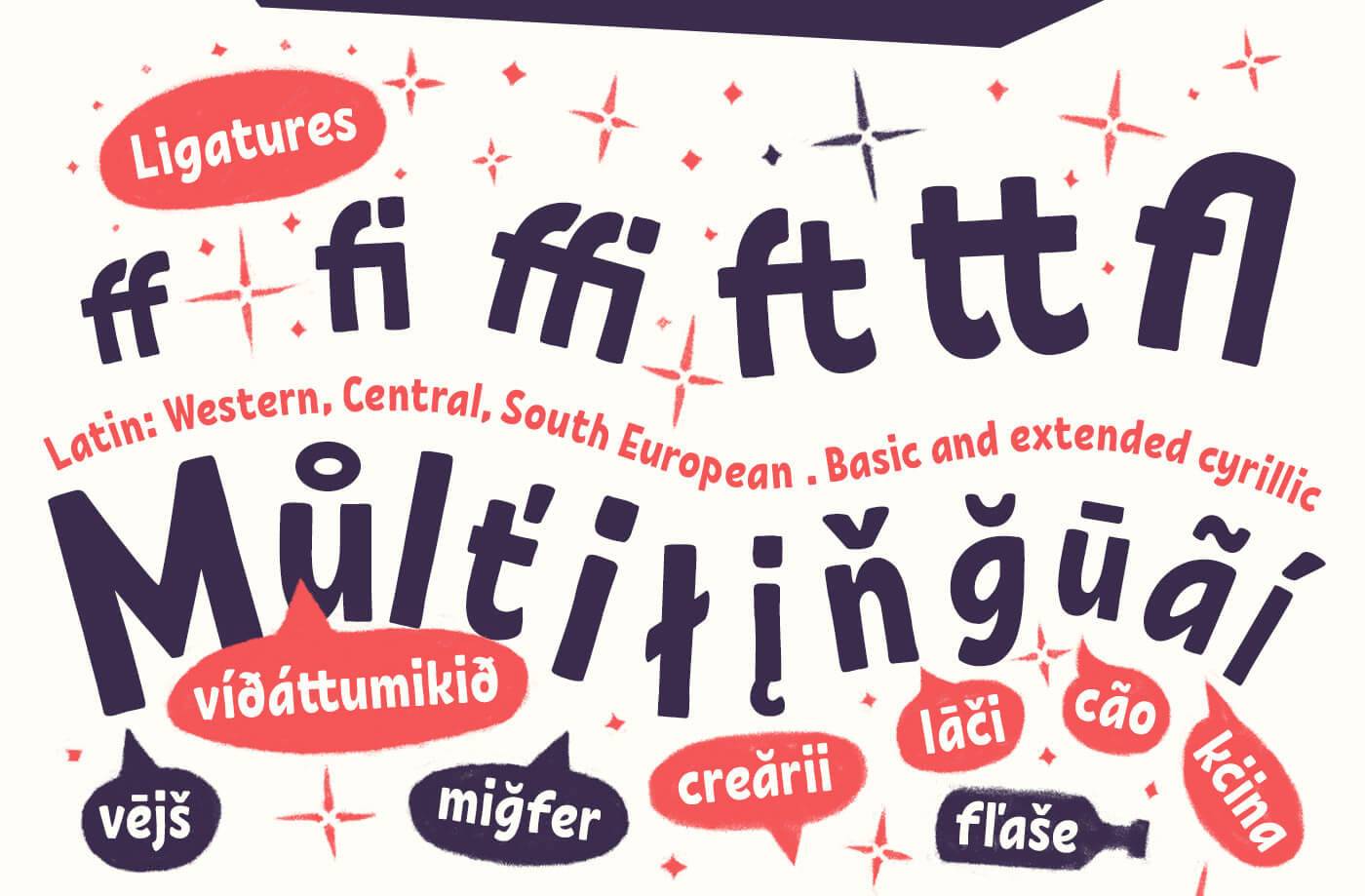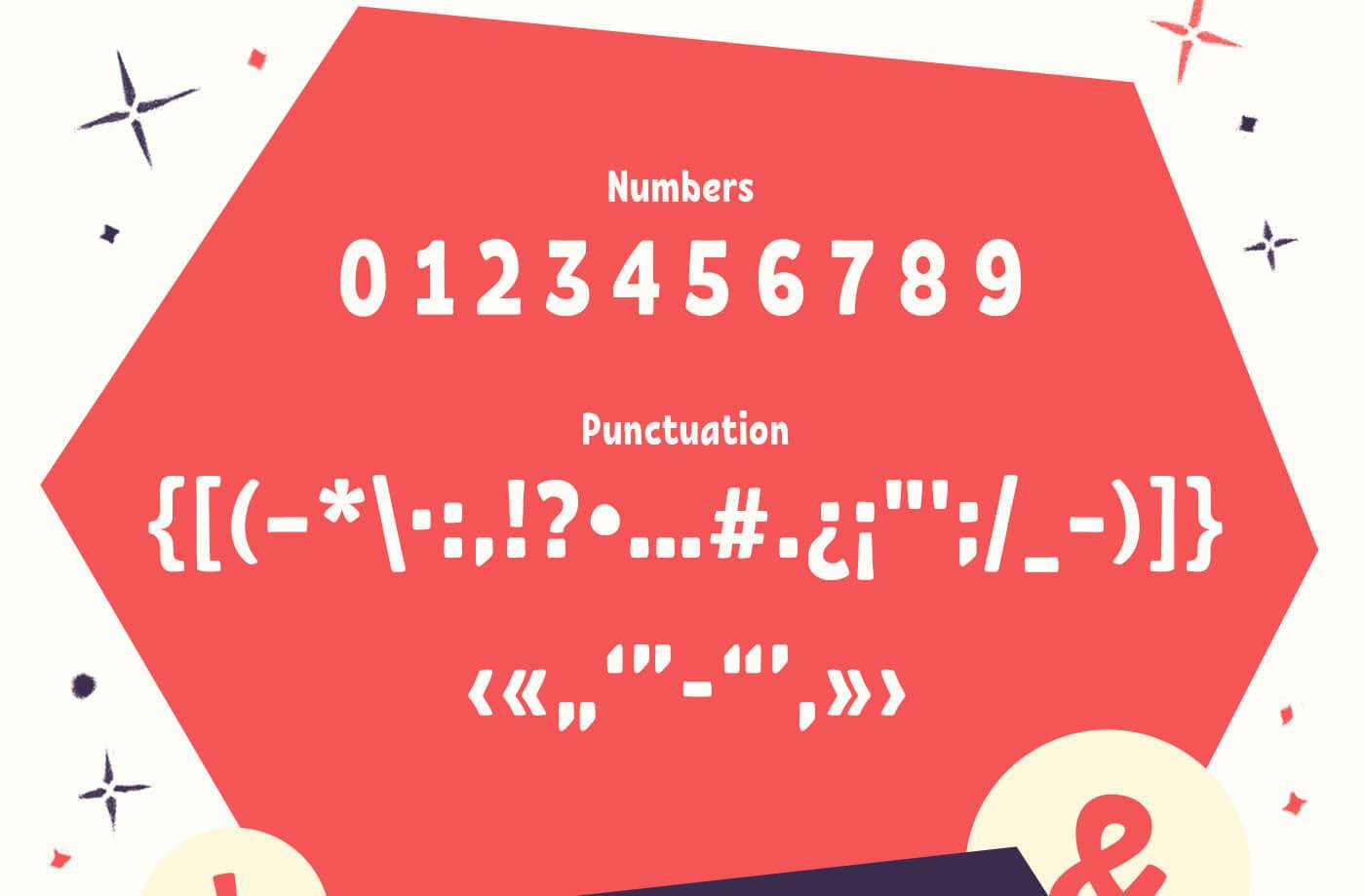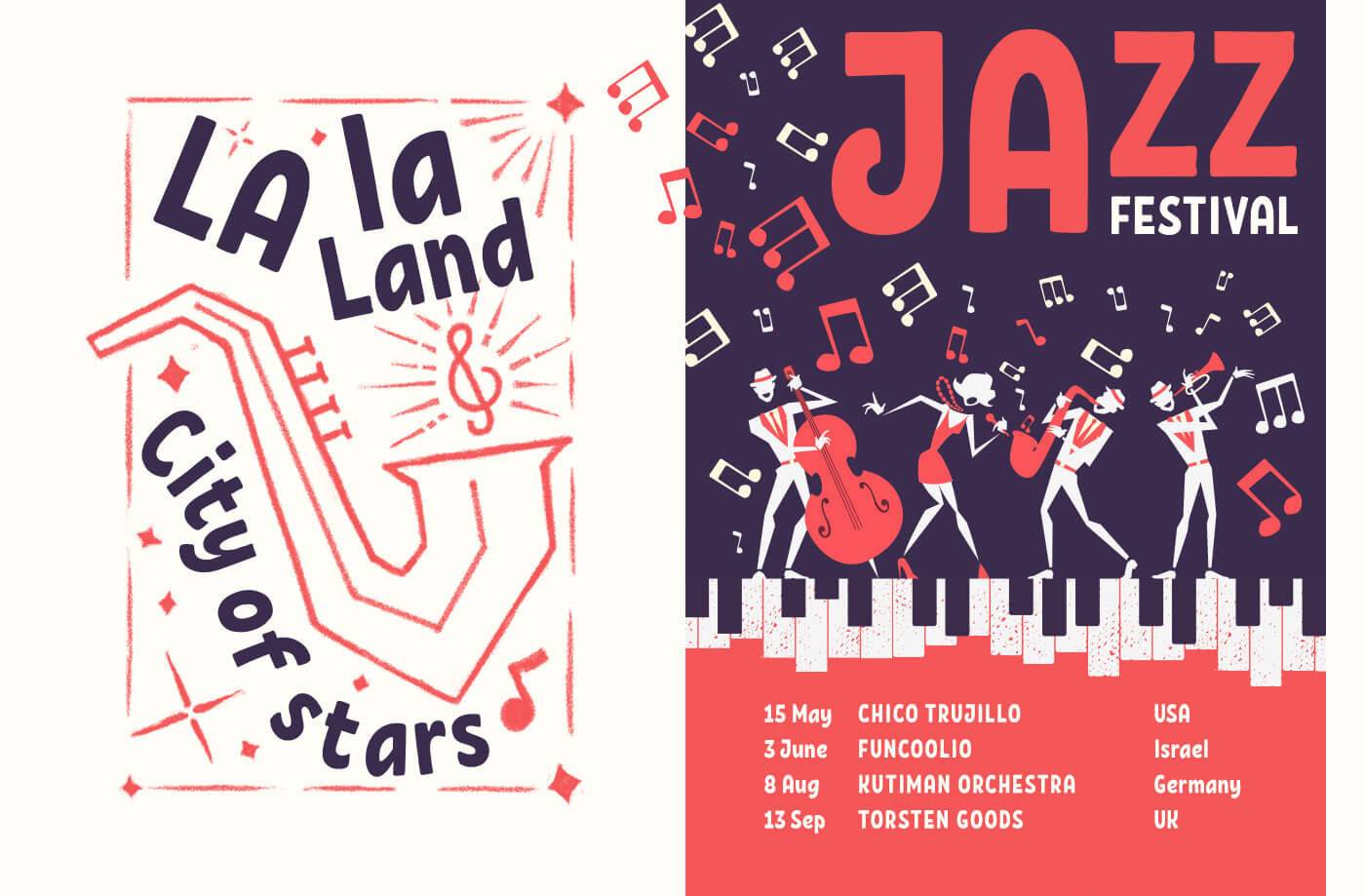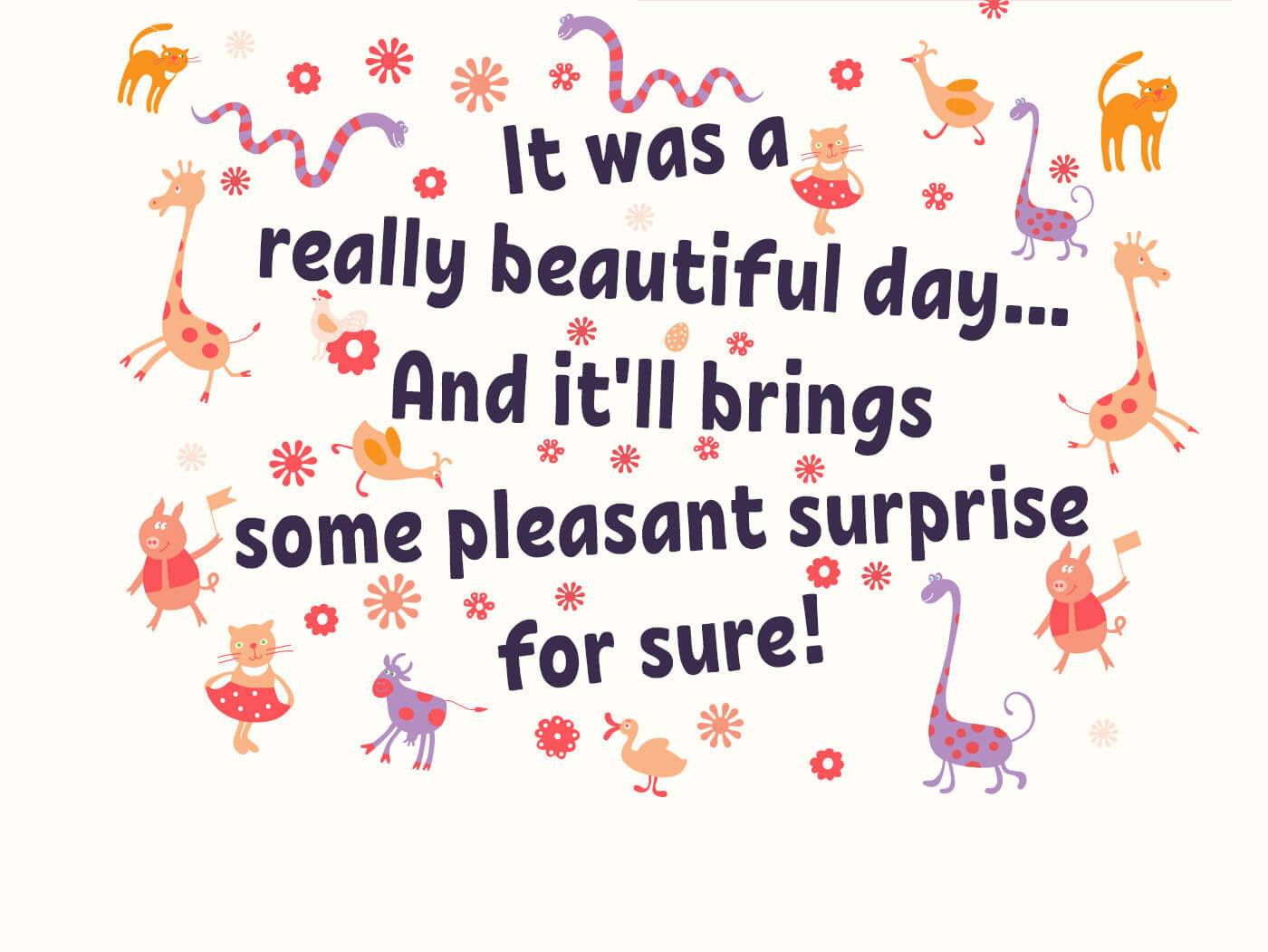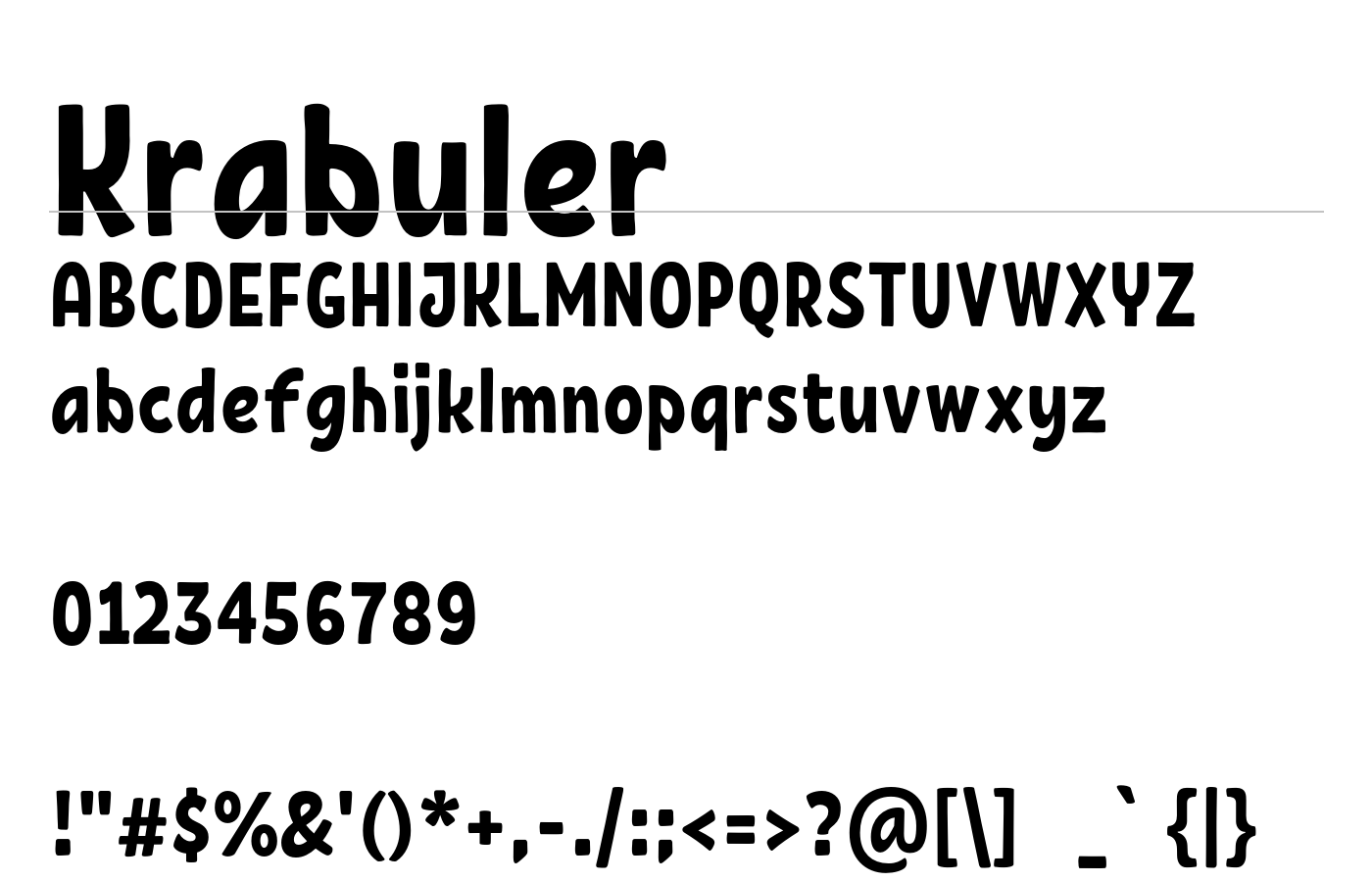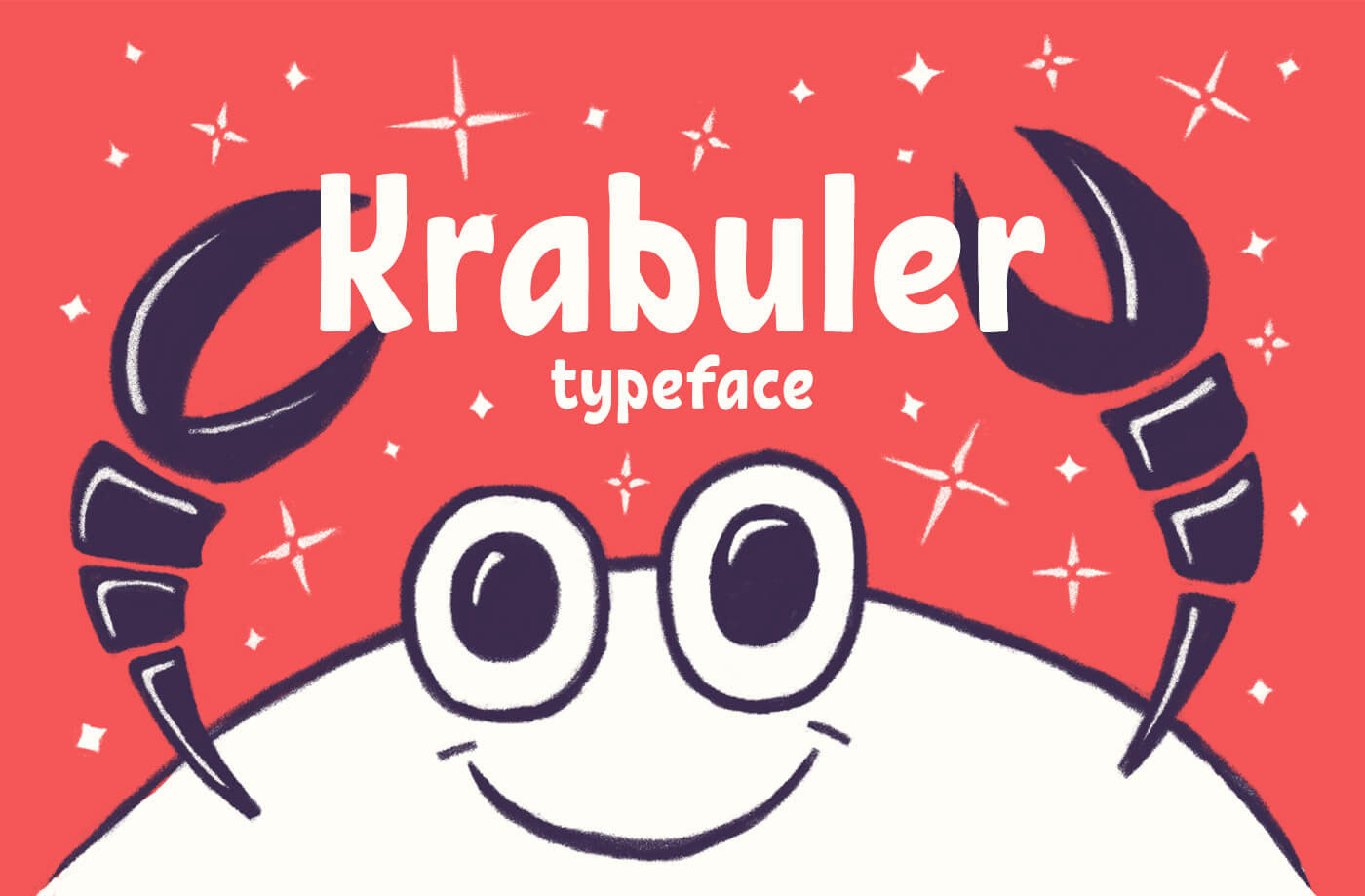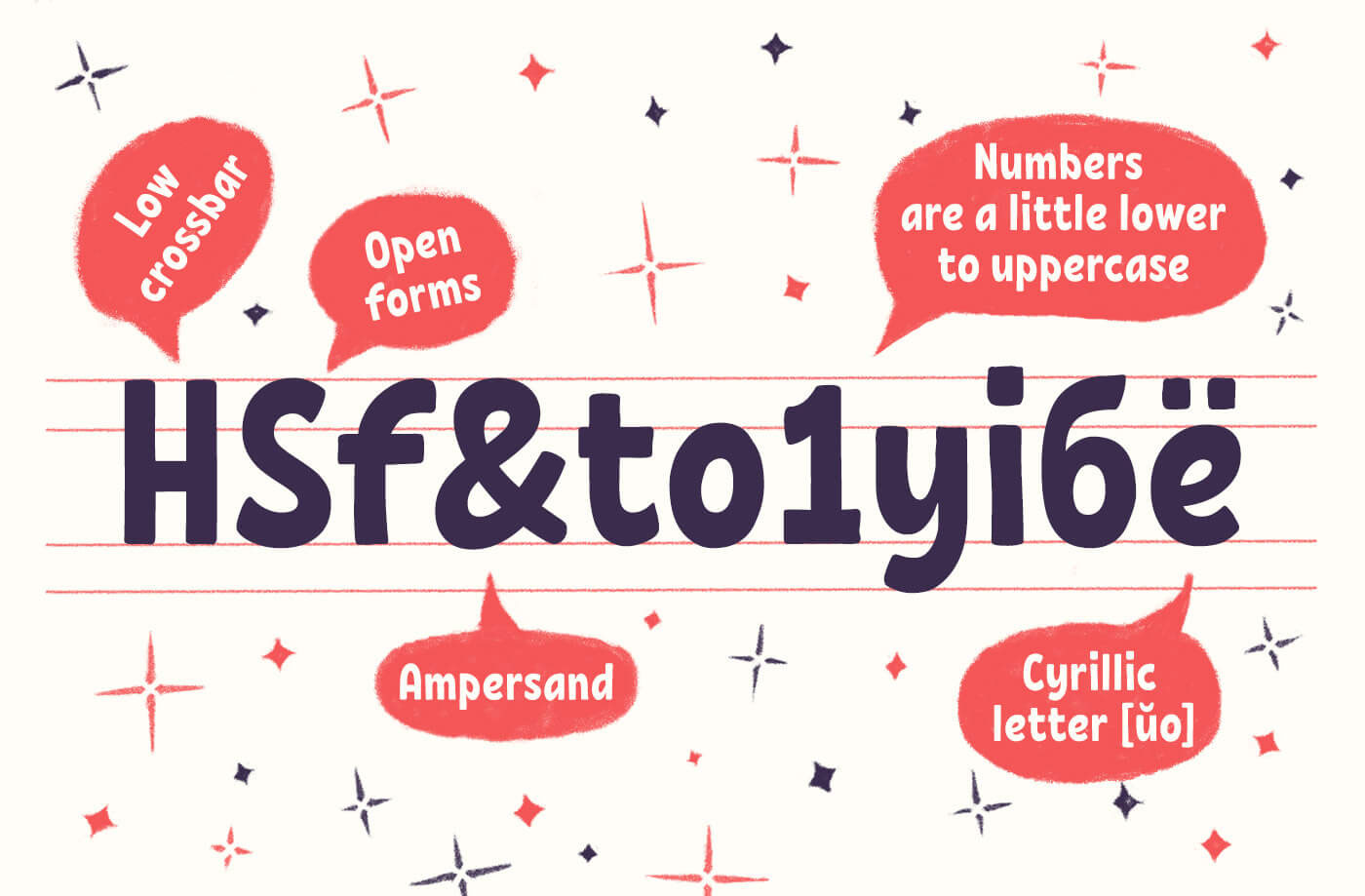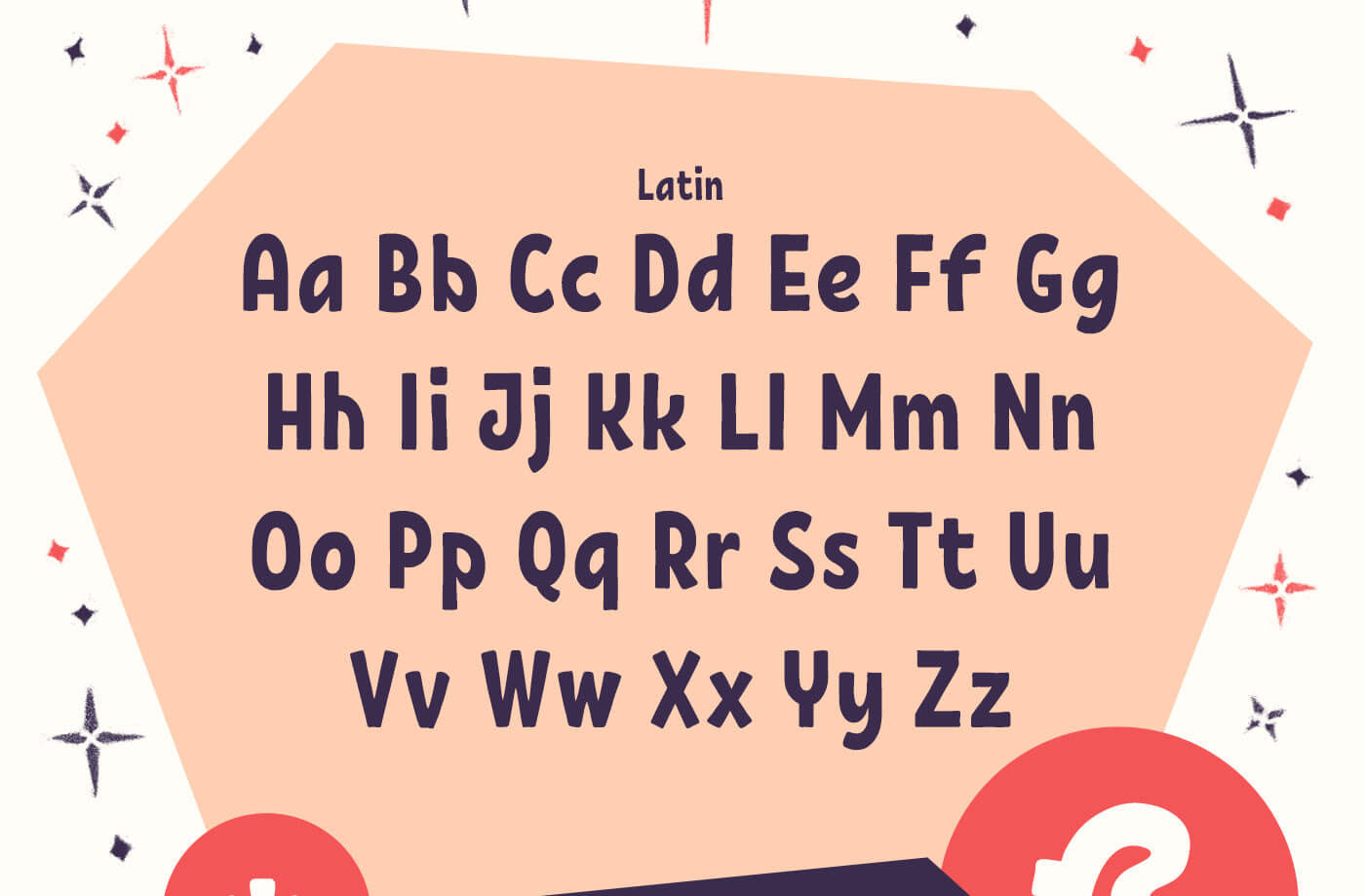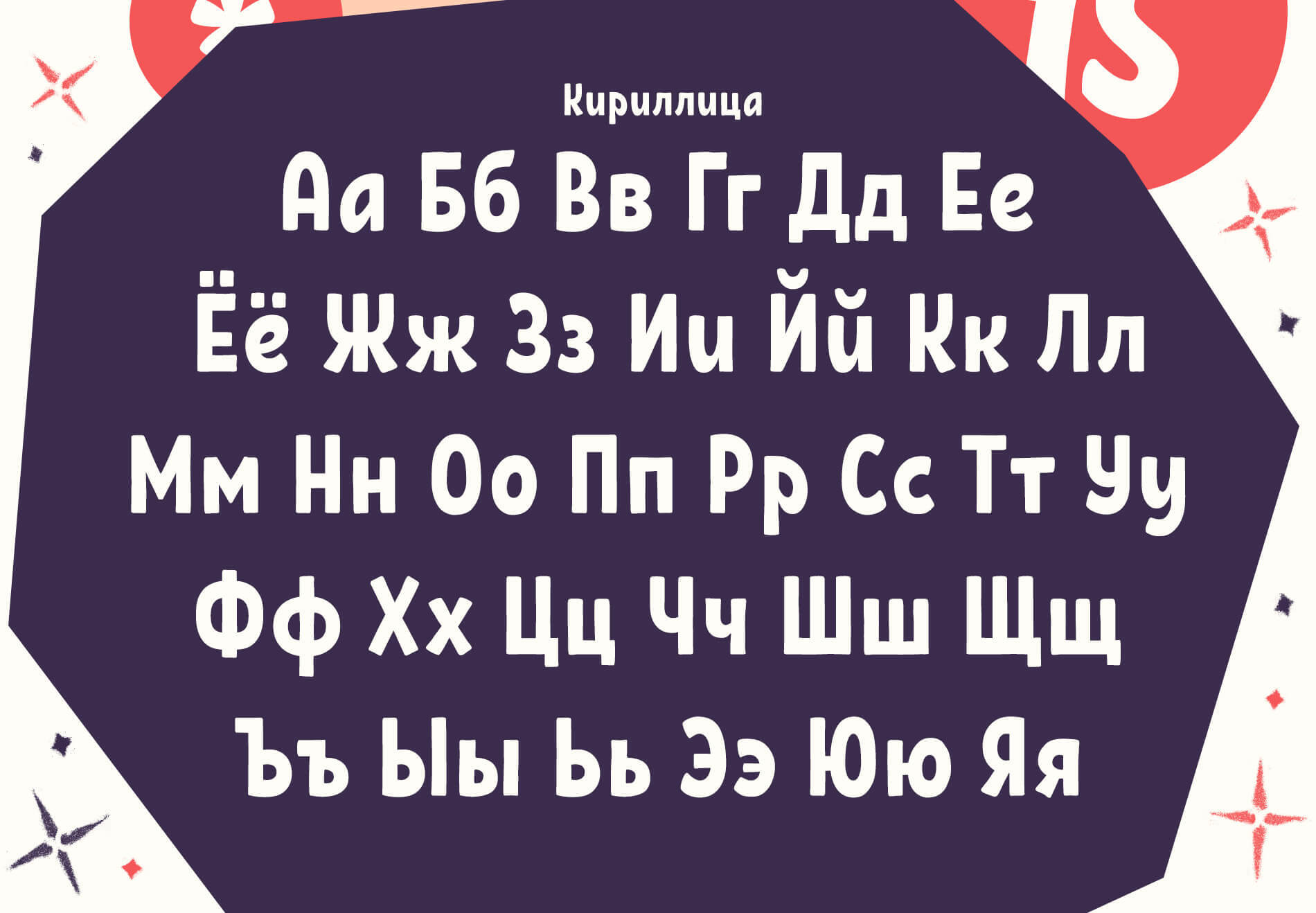
Krabuler is a playful, rounded sans serif font with a friendly, casual vibe. Its slightly irregular, bold letterforms and moderate x-height make it highly readable while adding a touch of whimsy, ideal for informal branding, children's content, and creative projects. This font works well in headlines and packaging where an approachable, fun character is desired.
Krabuler
About Krabuler
| Font family | Krabuler |
| Designer | Misha Panfilov |